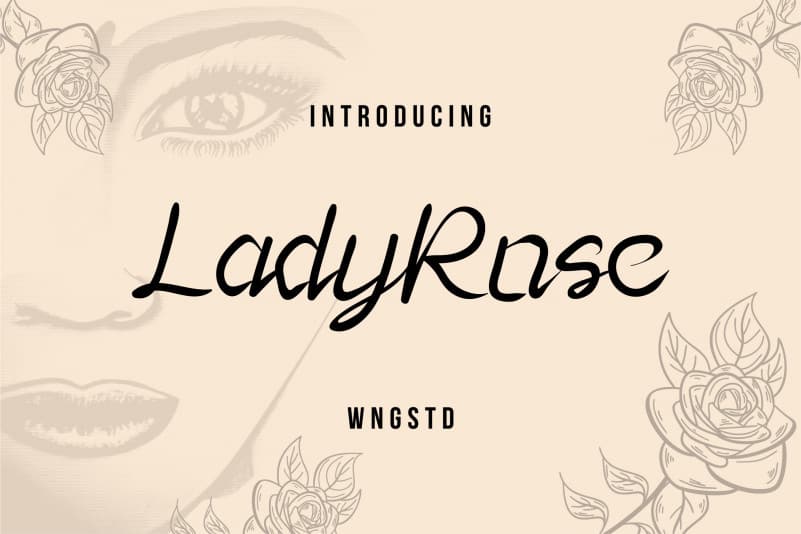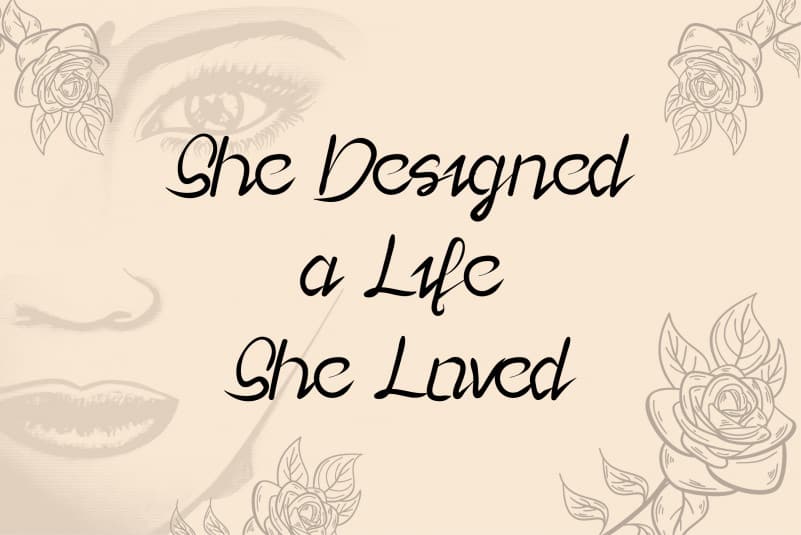
Lady Rose Calligraphy Typeface
Lady Rose Calligraphy Typeface is a playful and modern script font. featuring lightweight, it offers support for all characters of the English language. standard punctuation glyphs are included. Lady Rose Calligraphy Typeface is perfectly suited for traditional media and the web. great for the crafter and graphic artists. compatible with all tools. its playfulness makes it great for creative project., be inspirational wall poster, or for communicating your brand.
This font can be used for any variety of purposes.
Lady Rose Script is best for:
– logos + branding projects
– clean print design, like magazines + flyers
– header elements + websites that need a feminine touch
– quote graphics for social media